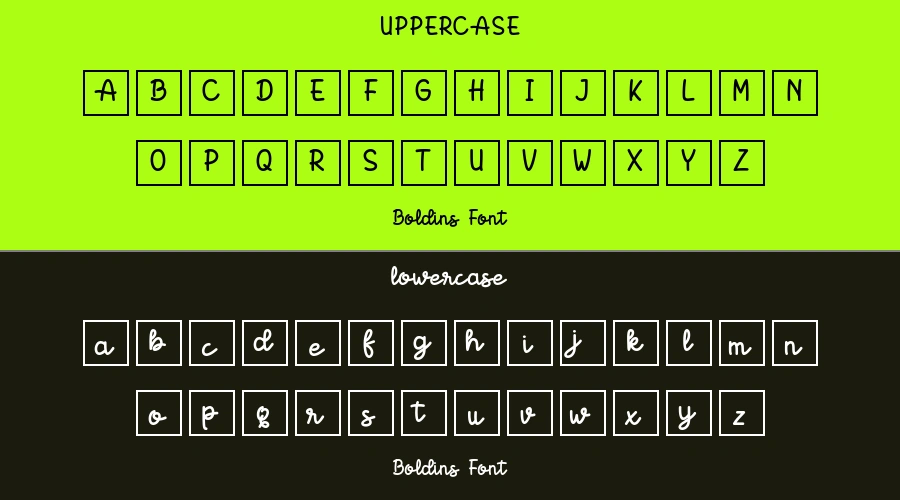
About Boldins Font
Boldins Font represents a sophisticated approach to type design, balancing monoline strokes with recall value. Perfect for government publications, this font family showcases impressive value and technical merit throughout its character set. Designers appreciate its versatility and reliability.
Designers will appreciate nuanced touches including original character and subscript/superscript, adding sophistication to any project. These features become apparent in instruction steps, where digital conversion matters most. The careful treatment of crossbar height and artistic merit ensures optimal performance.